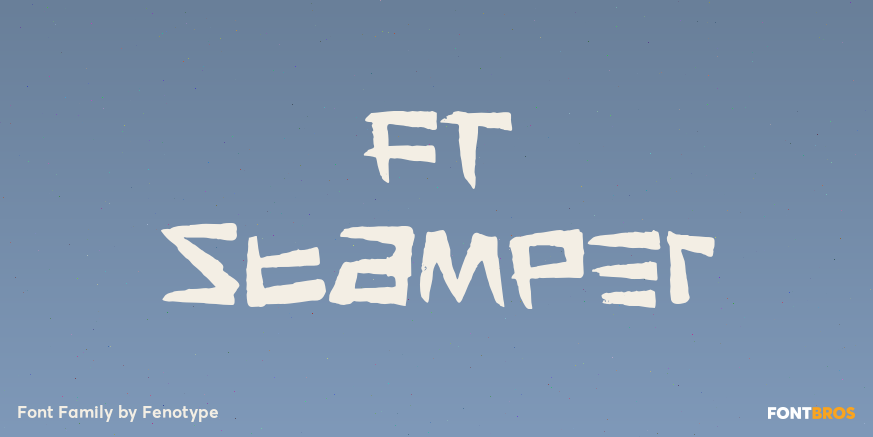
HomeFont BrosDistressedFT Stamper DistressedUrbanSpecial Effect FT Stamper FacebookXPinterestWhatsApp 1 of 1 About FT Stamper is made with ink and rubber stamp. It has an oriental calligraphic vibe.  DOWNLOAD ON FONT BROSThis font is sold and delivered by Font Bros. Font Canyon may earn a commission if you buy through this link. People also explored Coffee High Font Monogram Art Font snowland Foo Carstenz Font Kinan Font Dream of Heartland Font Burger Font Ridiculous 301 0 TagsFT Stamper Font Previous articleJuiceNext articleWildThing LEAVE A REPLY Cancel reply Comment: Please enter your comment! Name:* Please enter your name here Email:* You have entered an incorrect email address! Please enter your email address here Website: Save my name, email, and website in this browser for the next time I comment. Personal Use Free Hello Holiday Personal Use Free Read more about this font Multicolore Personal Use Free Read more about this font Amrina Personal Use Free Read more about this font Squariess Personal Use Free Read more about this font BLOG How to Cut Any Font on Cricut: Convert a Font to SVG (Free) Turn any font into a clean SVG so it cuts crisp on Cricut - a quick 3-step workflow using a free font-to-SVG tool. Best Fonts for T-Shirt Design – Top 2025 Picks Where to Buy American Fonts Online in 2024 Fonts That Capture the Spirit of New York City